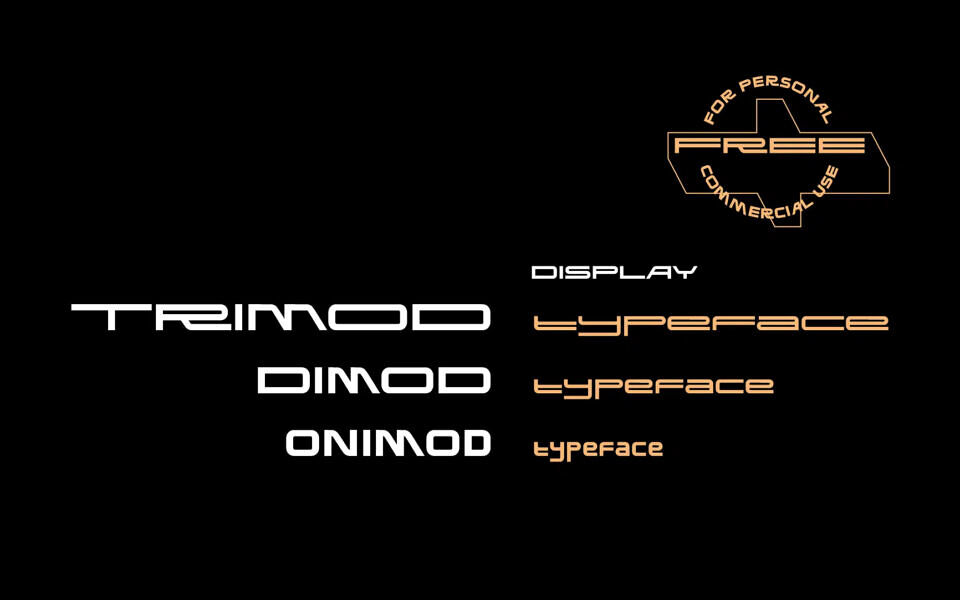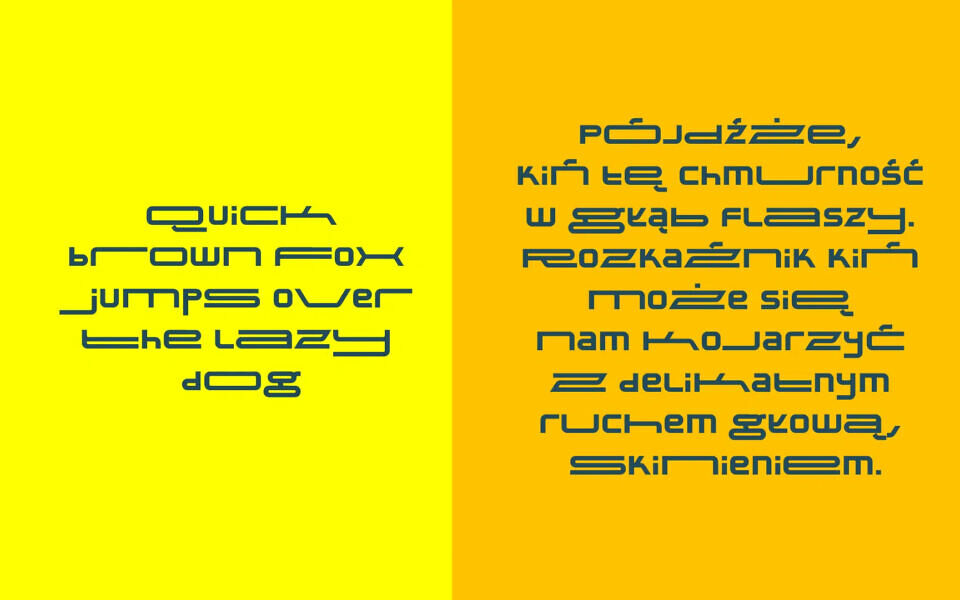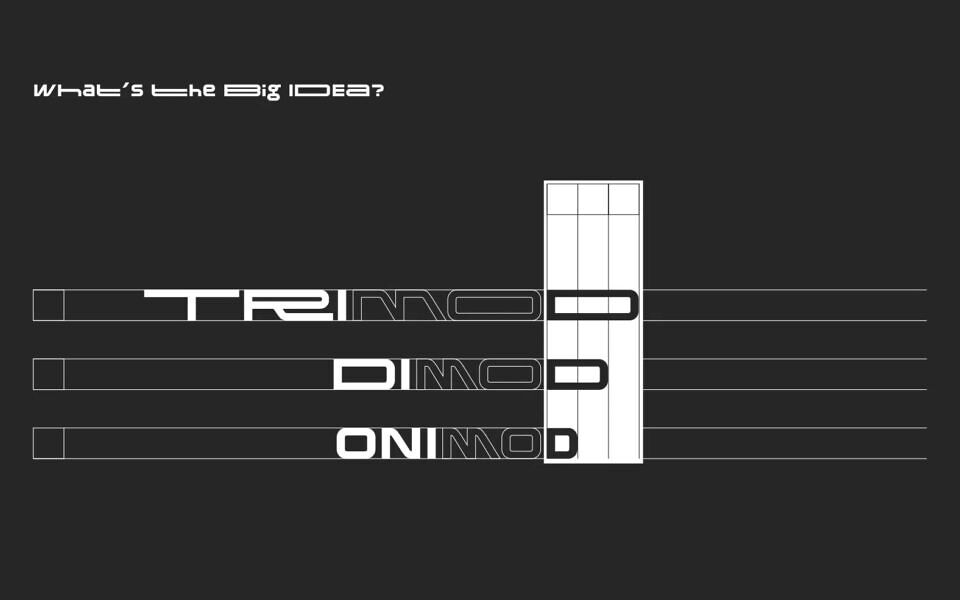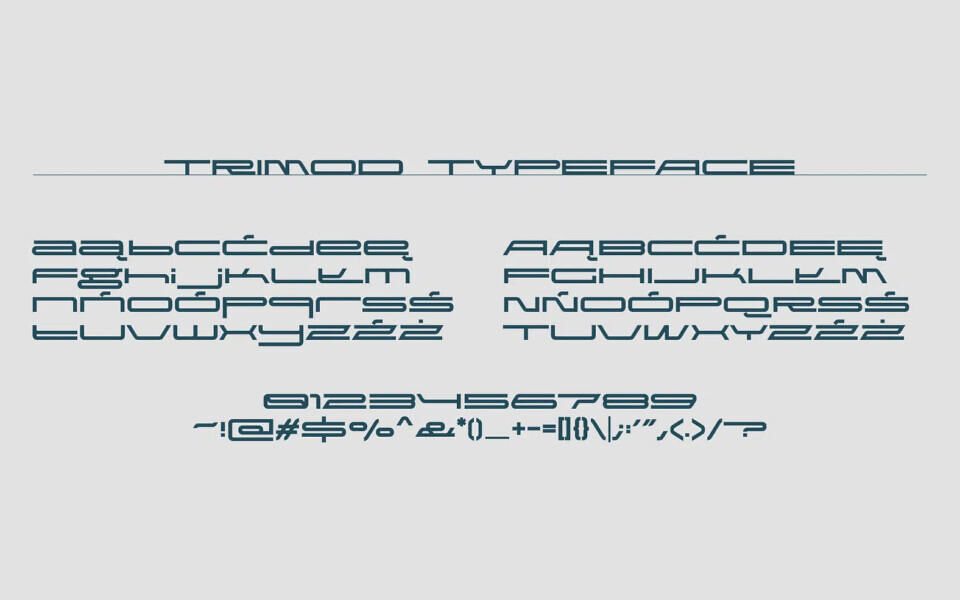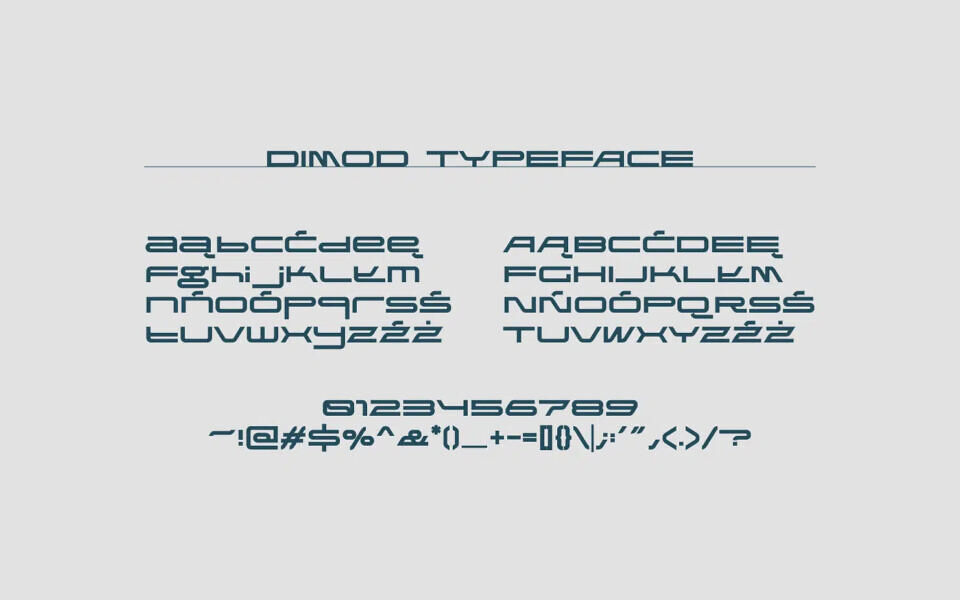
The TRIMOD / DIMOD / ONIMOD font family was created while developing a visual identity project. The resulting set of characters was so extensive that we decided to create a font from them.